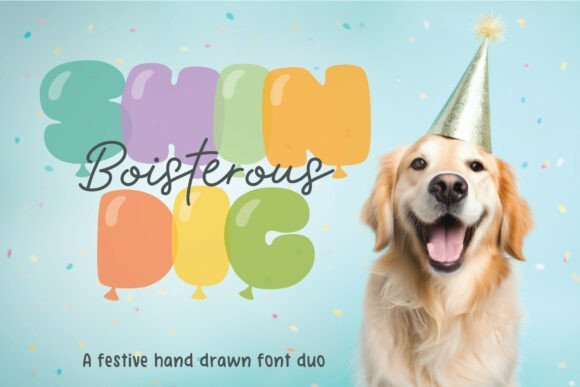
Getting Ready to Party with the Shin Boisterous Shindig Duo Font
Have you ever been brainstorming a new design project and suddenly felt the urge to throw a virtual confetti party? That’s exactly what happens when you meet the Shin Boisterous Shindig Duo Font, a whimsical, high-energy font duo designed to bring an immediate sense of celebration to any project.
This dynamic duo features a charmingly plump, balloon-style display face paired with a graceful, flowing script, offering a perfect balance of “bold” and “elegant.” Whether you’re designing a birthday invitation, festive social media graphics, or nursery decor, the Shin Boisterous Shindig Duo Font is the ultimate choice for adding a touch of excitement and sophistication to your work.
As a designer, you’ll appreciate the versatility of this font, which allows you to grab attention with the chunky balloon letters and add a personal touch with the handwritten script. With the Boisterous Shindig Duo Font, you’ll be able to create cohesive, professional-looking event branding with ease, making it a valuable addition to your design toolkit.
Boisterous Shindig Duo Font Key Features
- Font Family: Boisterous Shindig Duo, a unique duo-tone font designed for various design applications.
- Character Count: 500+ characters, including uppercase and lowercase letters, numbers, and punctuation marks.
- Unique Characteristics: Boisterous Shindig Duo features a dynamic duo-tone effect, where each character has two distinct colors, creating a visually striking effect.
Review: Boisterous Shindig Duo Font
As a designer, I was initially drawn to the playful and energetic vibe of the Boisterous Shindig Duo Font. ✨ The font’s bold and colorful letters really do evoke a sense of fun and celebration, making it perfect for projects that need a lighthearted touch.
One of the standout features of this font is its versatility. ✨ It comes in two main styles – the “Shindig” and “Duo” – which can be used separately or combined to create unique and interesting text arrangements. The font also includes a range of swashes and flourishes that add an extra layer of personality to any design.
- ⚠️ Limited flexibility: While the font is great for projects that need a bold and playful vibe, it may not be the best choice for more formal or professional designs.
- ⚠️ Lack of readability at small sizes: The font’s bold lines and colorful details can make it difficult to read at small sizes, which may limit its use in certain contexts.
Overall, the Boisterous Shindig Duo Font is a fun and energetic addition to any designer’s toolkit. While it may not be suitable for every project, it’s definitely worth considering for designs that need a playful and celebratory vibe.
The “Boisterous Shindig Duo Font” is ideal for:
- Party invitations and event materials.
- Children’s books and educational materials.
- Playful advertisements and marketing materials.